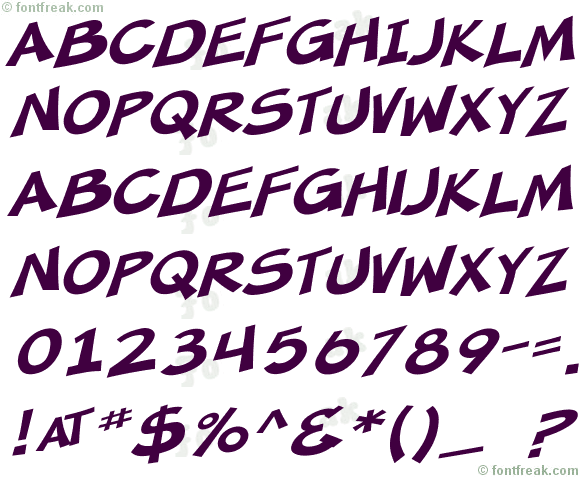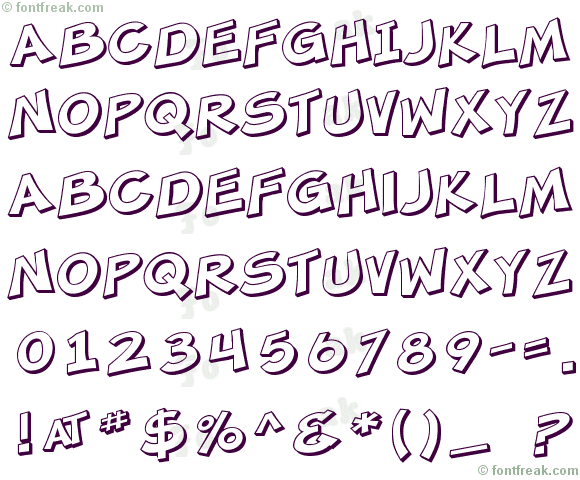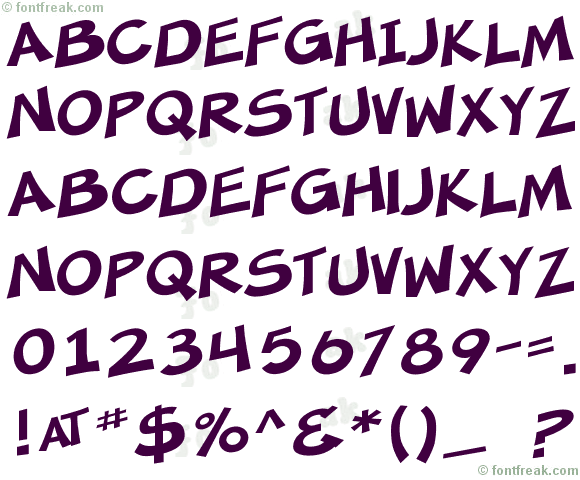
SF Minced Meat
About Minced Meat
Minced Meat is a unique display font created by Shyfonts Type Foundry, characterized by its bold and oblique style. This freeware typeface stands out with its distinctive visual characteristics, which include a heavy stroke weight and a slightly extended structure that gives it a robust presence. The shaded elements add depth and a playful touch, making it an excellent choice for projects that require a bit of character. The spacing is designed to be visually appealing while maintaining legibility, making Minced Meat suitable for a range of applications.
This font is particularly well-suited for use in restaurant menus, where its playful yet bold design can effectively capture attention and convey a sense of fun. It also shines in movie posters, allowing titles to leap off the page with a striking and memorable impact. Additionally, Minced Meat can be employed in promotional materials for food-related businesses or events, adding a whimsical flair that resonates with the theme. Graphic designers and content creators will find this font an excellent choice for branding projects, as it conveys a friendly and inviting atmosphere.
Targeting graphic designers, small business owners, and content creators, Minced Meat offers a versatile option for those looking to make a statement. Its quirky aesthetic makes it particularly appealing to audiences seeking a modern yet approachable look.
What truly sets the Minced Meat font apart is its ability to blend boldness with a playful spirit, making it an exceptional choice for projects that aim to stand out. With its unique characteristics and versatility, Minced Meat font free download is an opportunity for creators to elevate their designs with a touch of personality. Embrace the fun and flavor of this font in your next project, and watch your designs come to life.